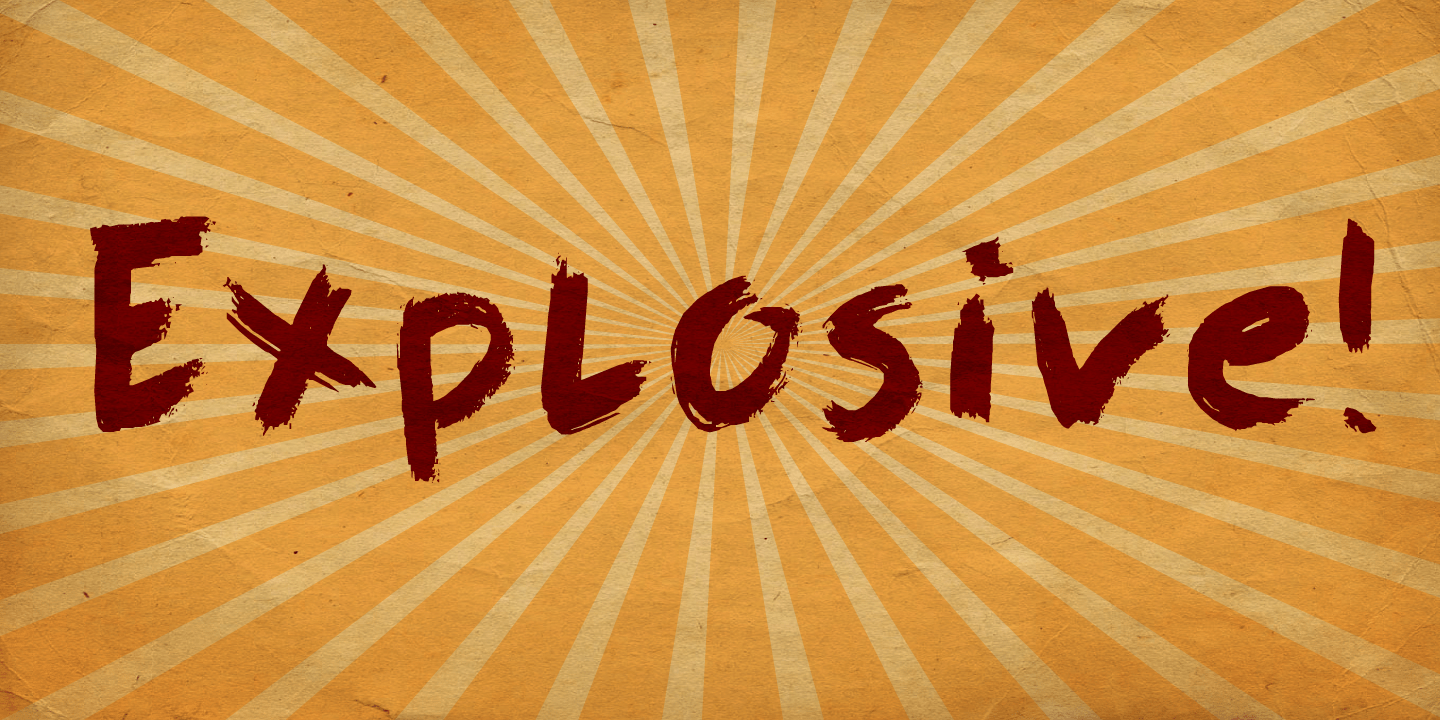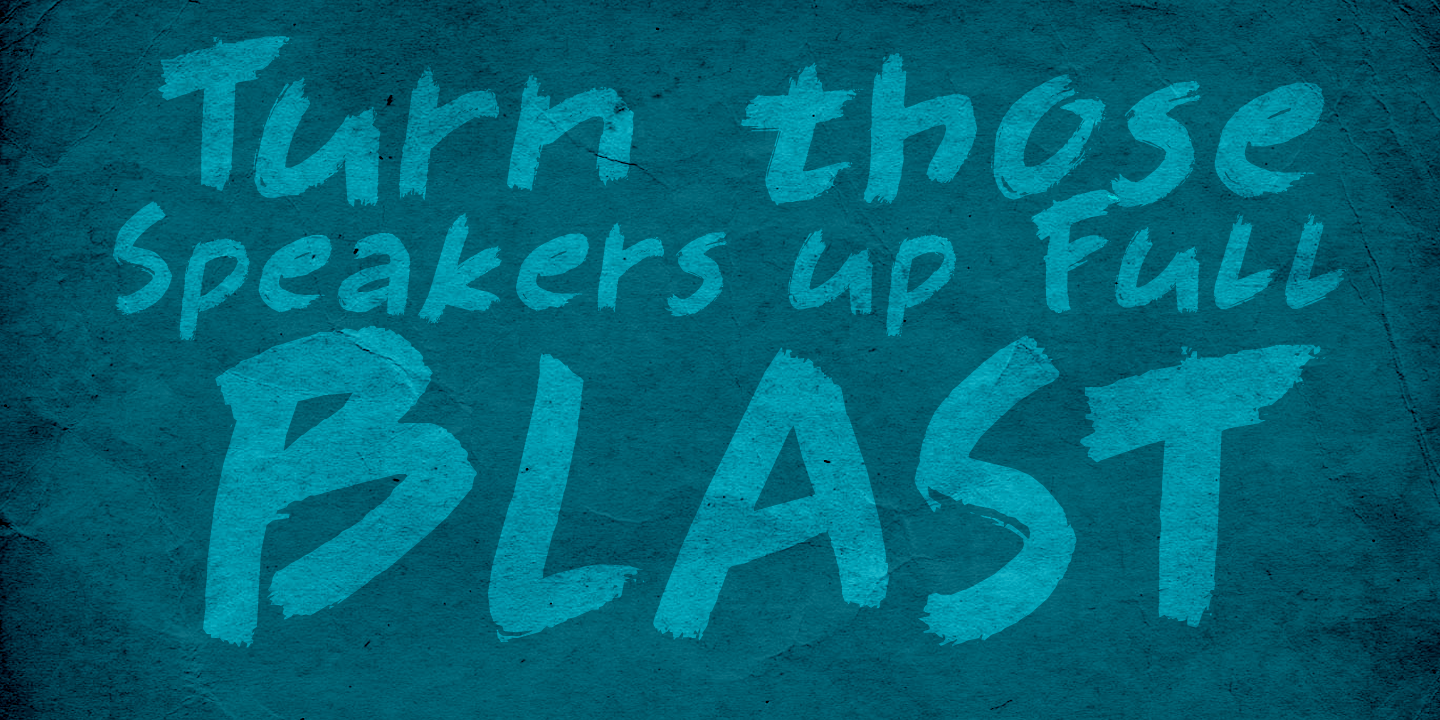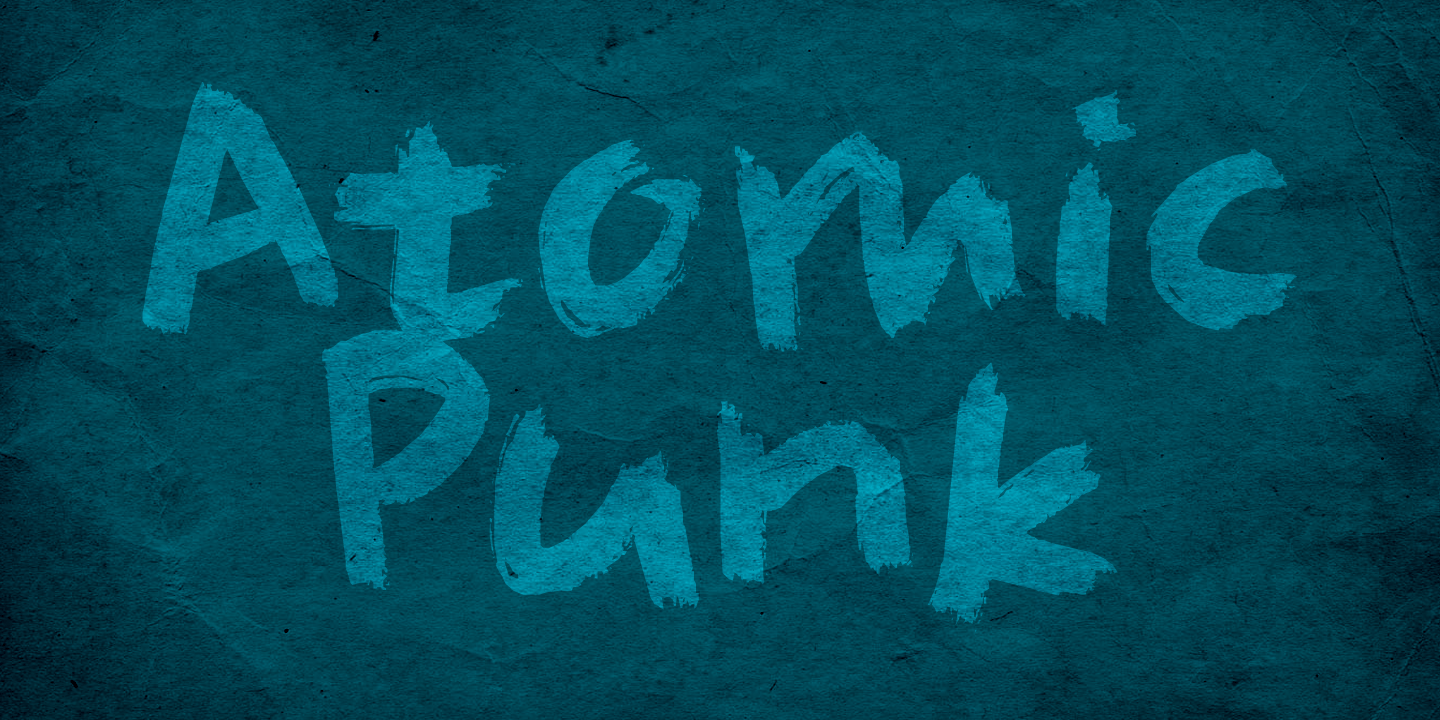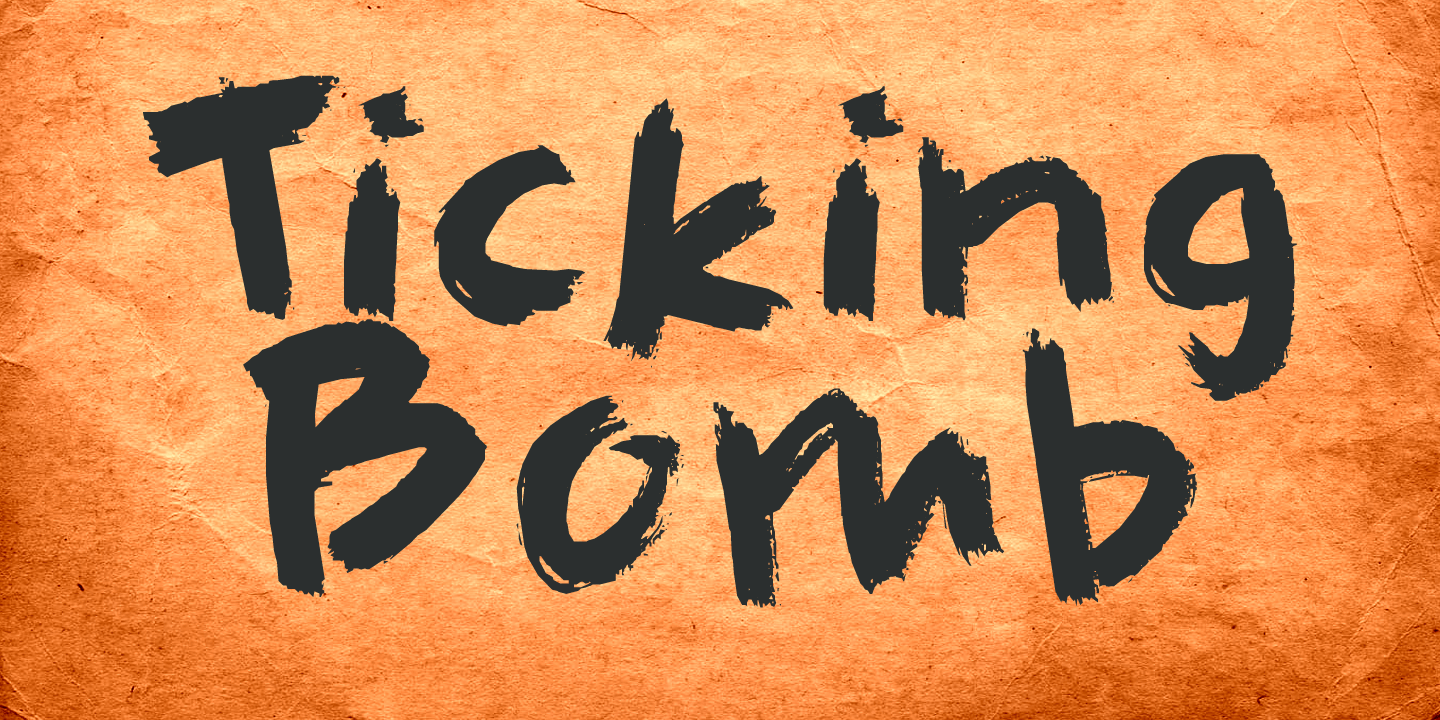
About Full Blast
I was cleaning out my pencil box and found an old marker pen. I wanted to throw it away, because it was leaking all over my stuff, but decided I could use it one last time. The result is Full Blast font: a ?brush? font (made with that leaking old marker…